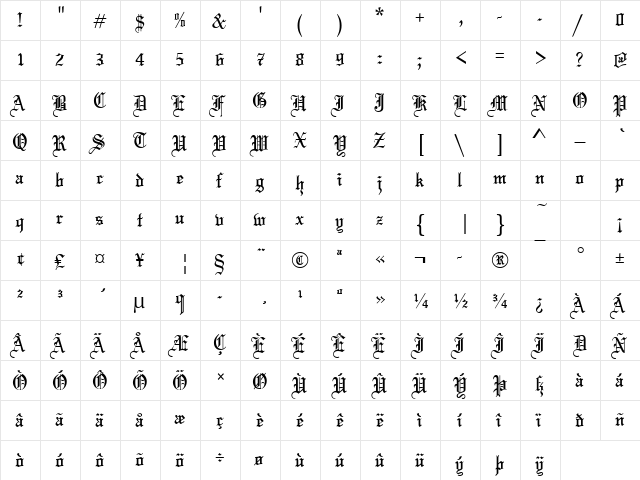
UVN Dam Cuoi Hep Regular
Design Context for UVN Dam Cuoi Hep Typeface
UVN Dam Cuoi Hep is a composed and adaptable typeface that performs quietly and consistently across a wide range of design contexts.